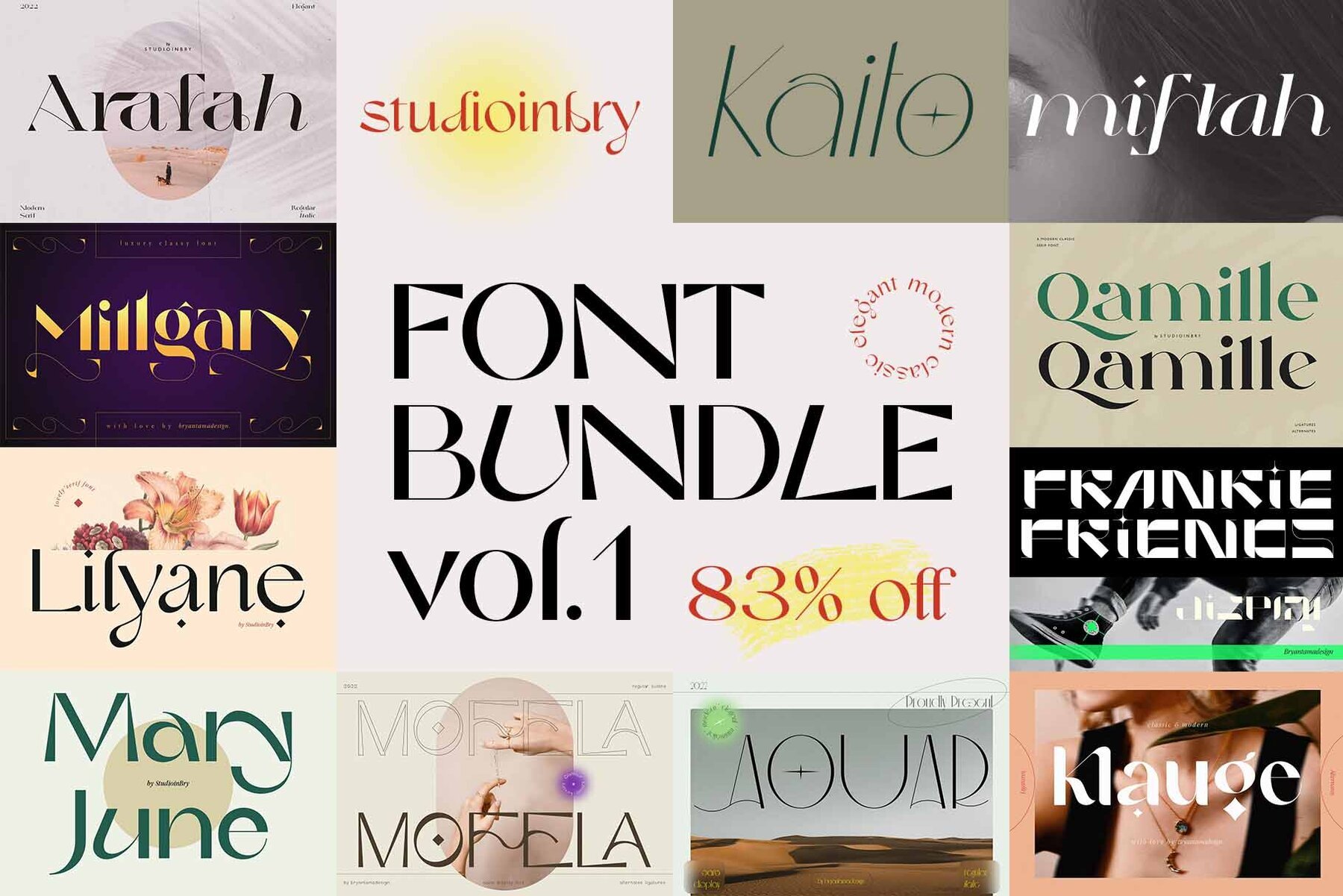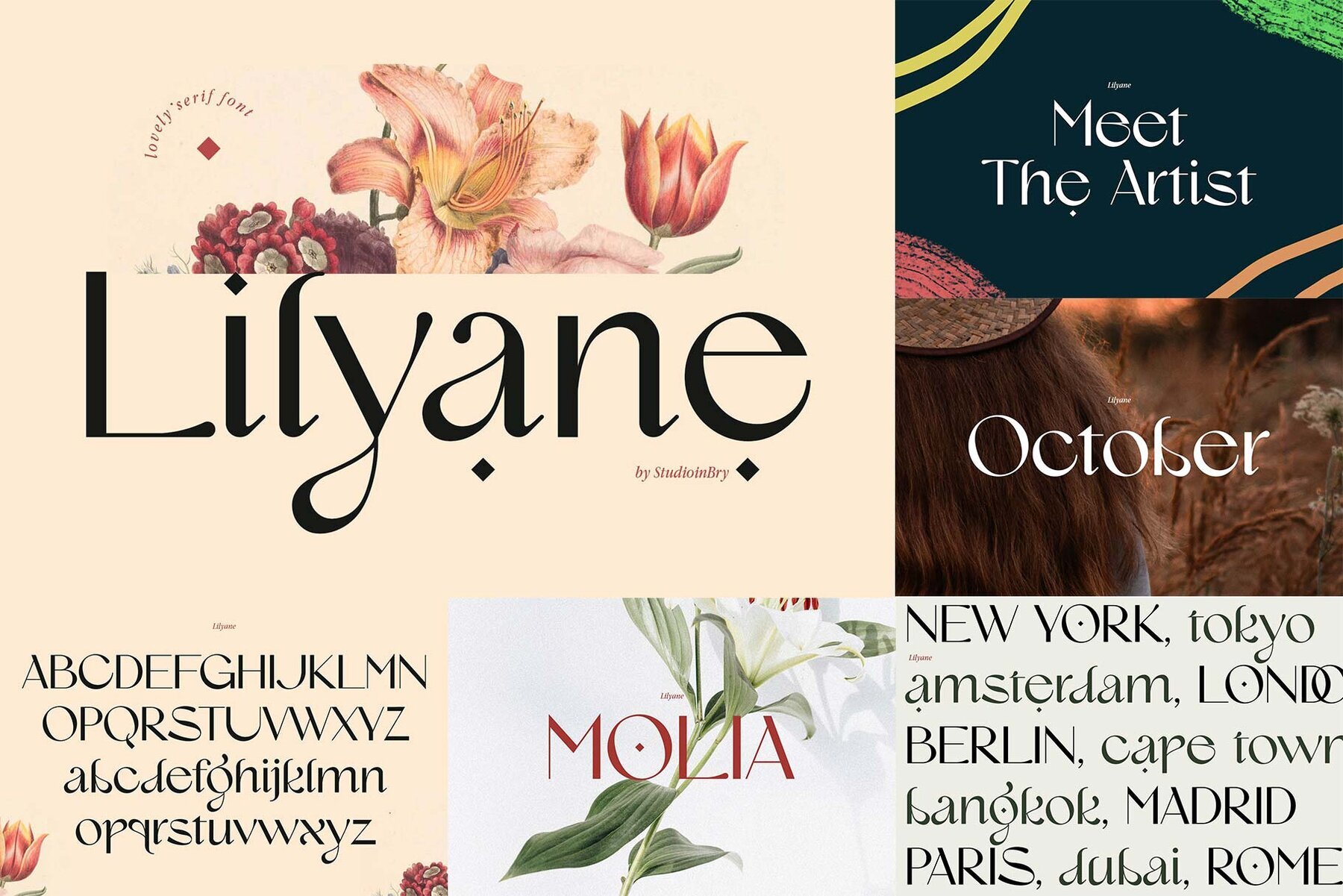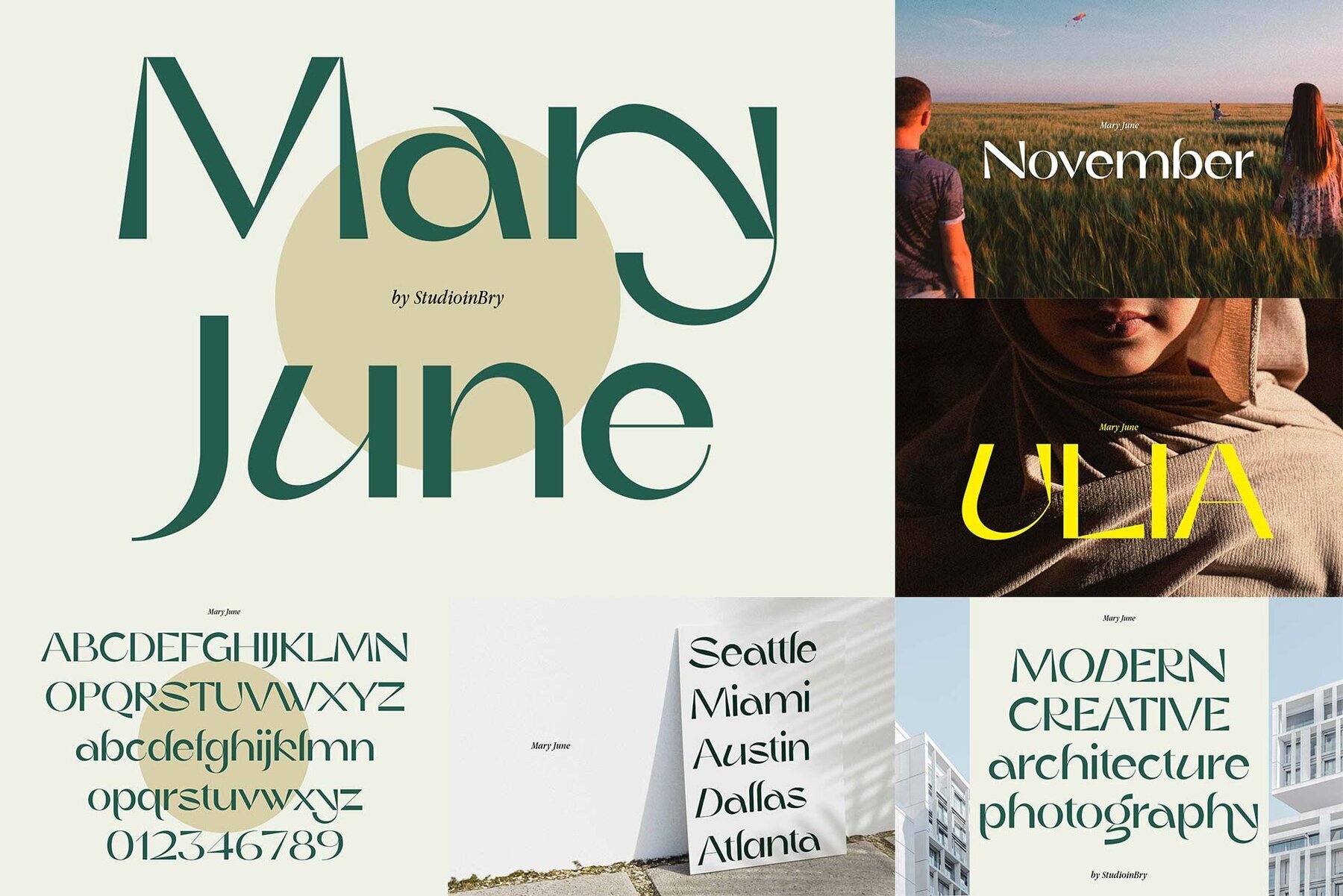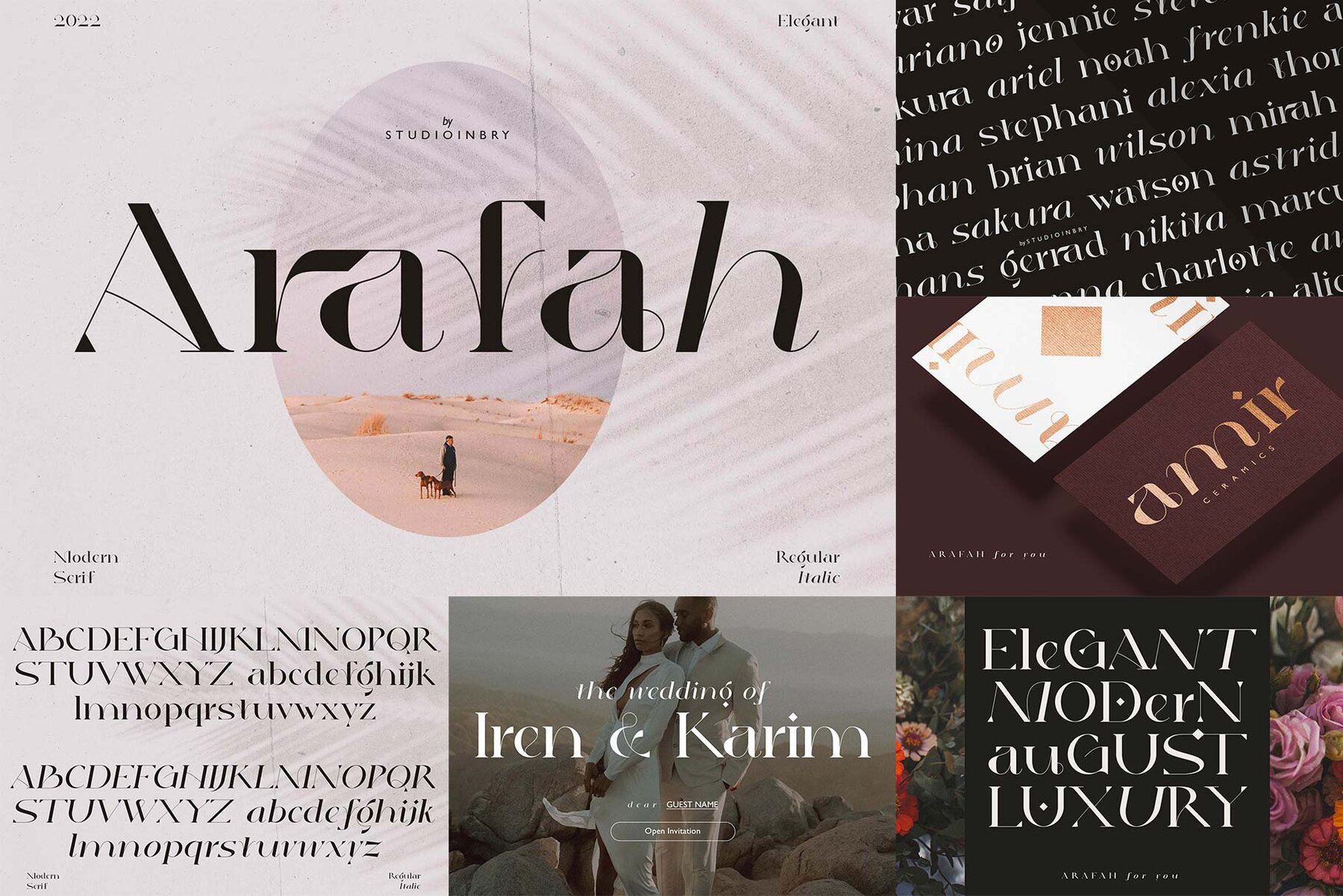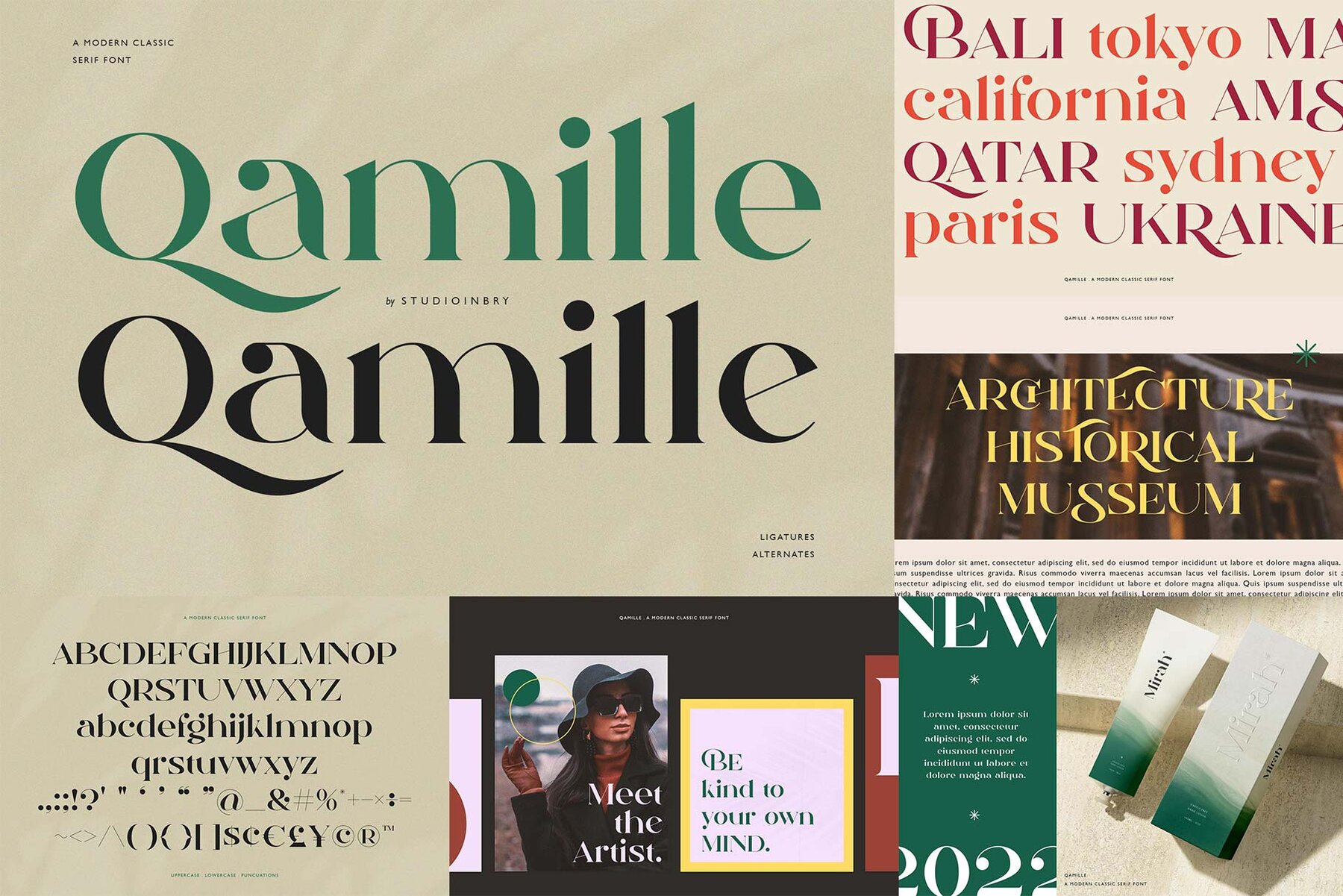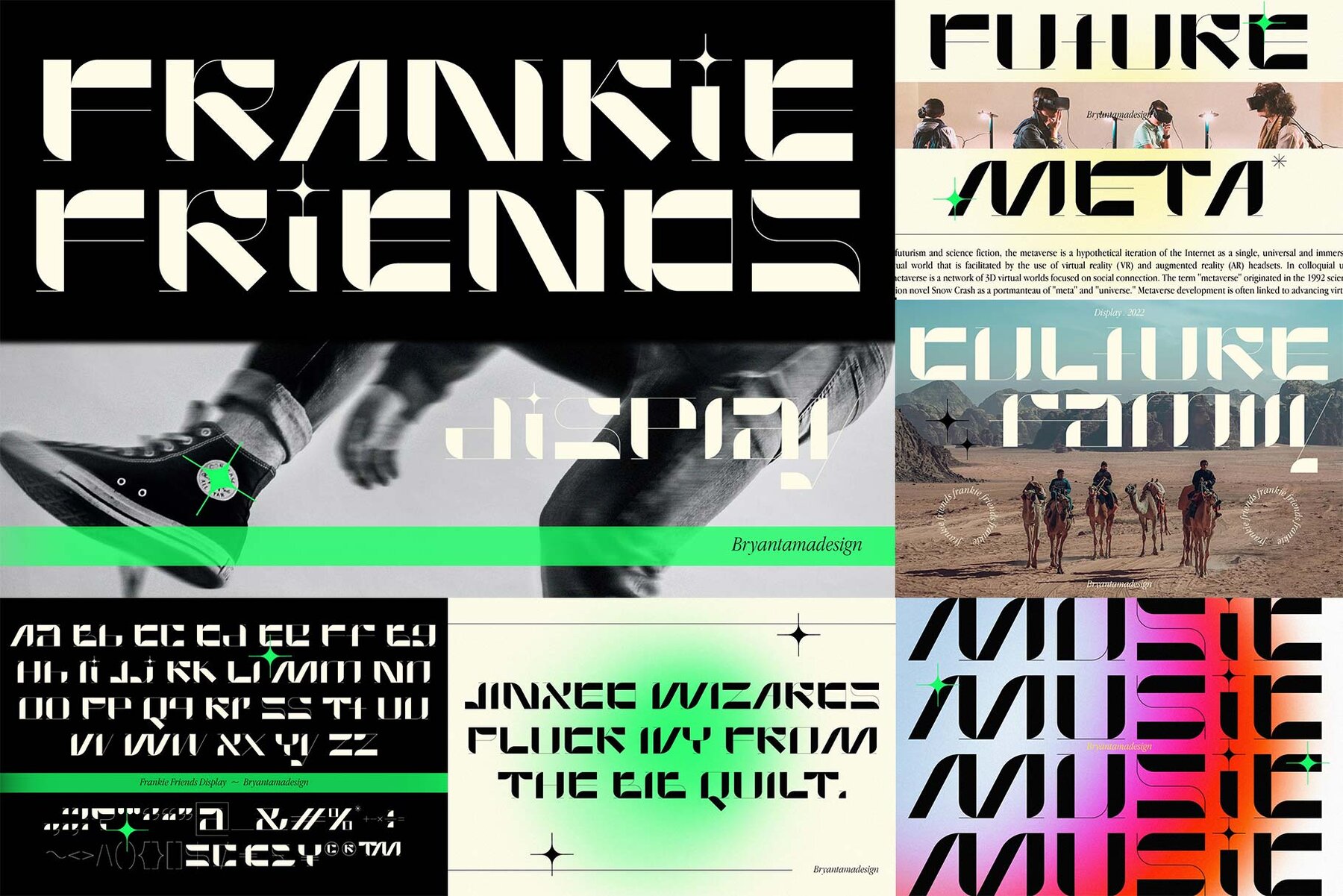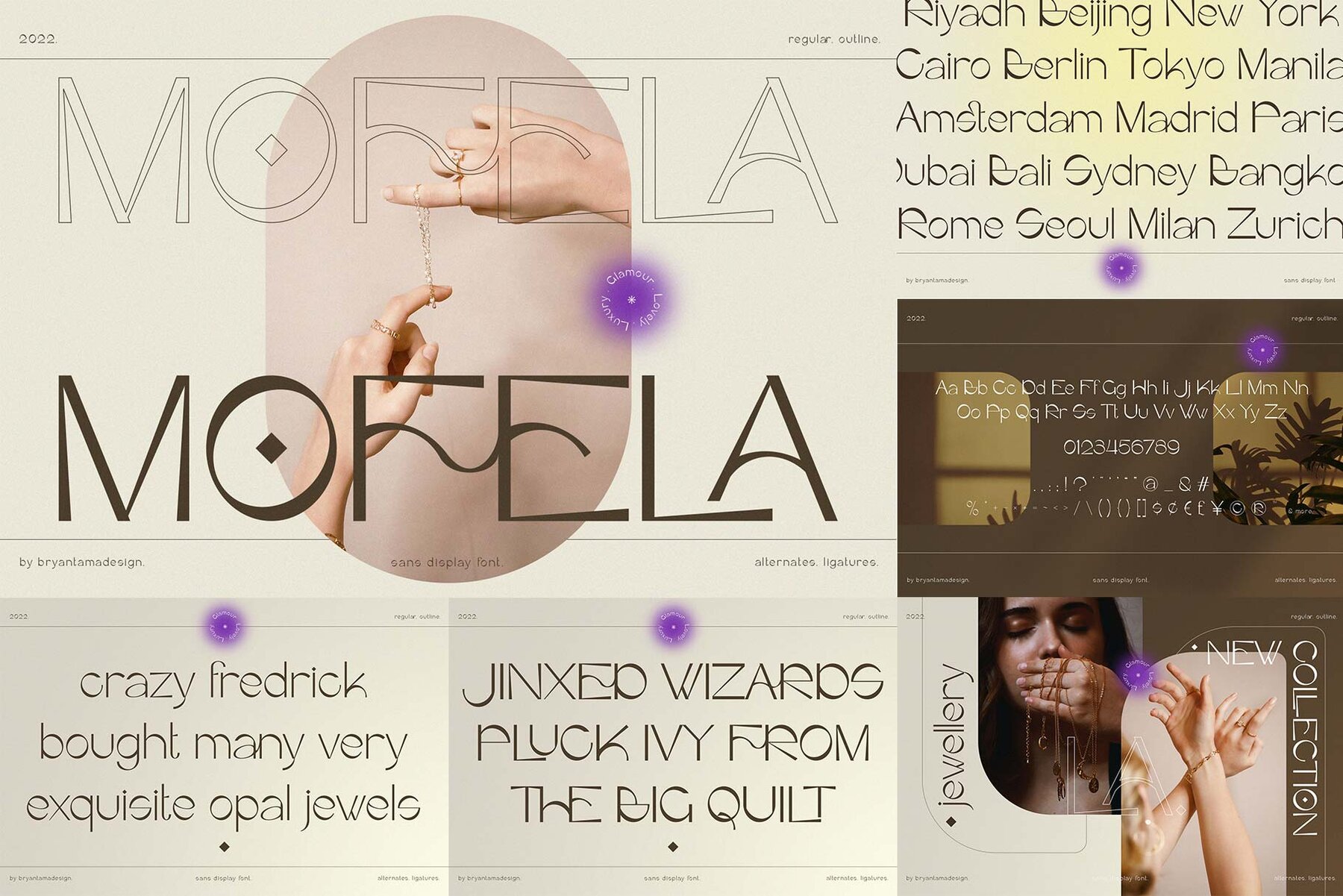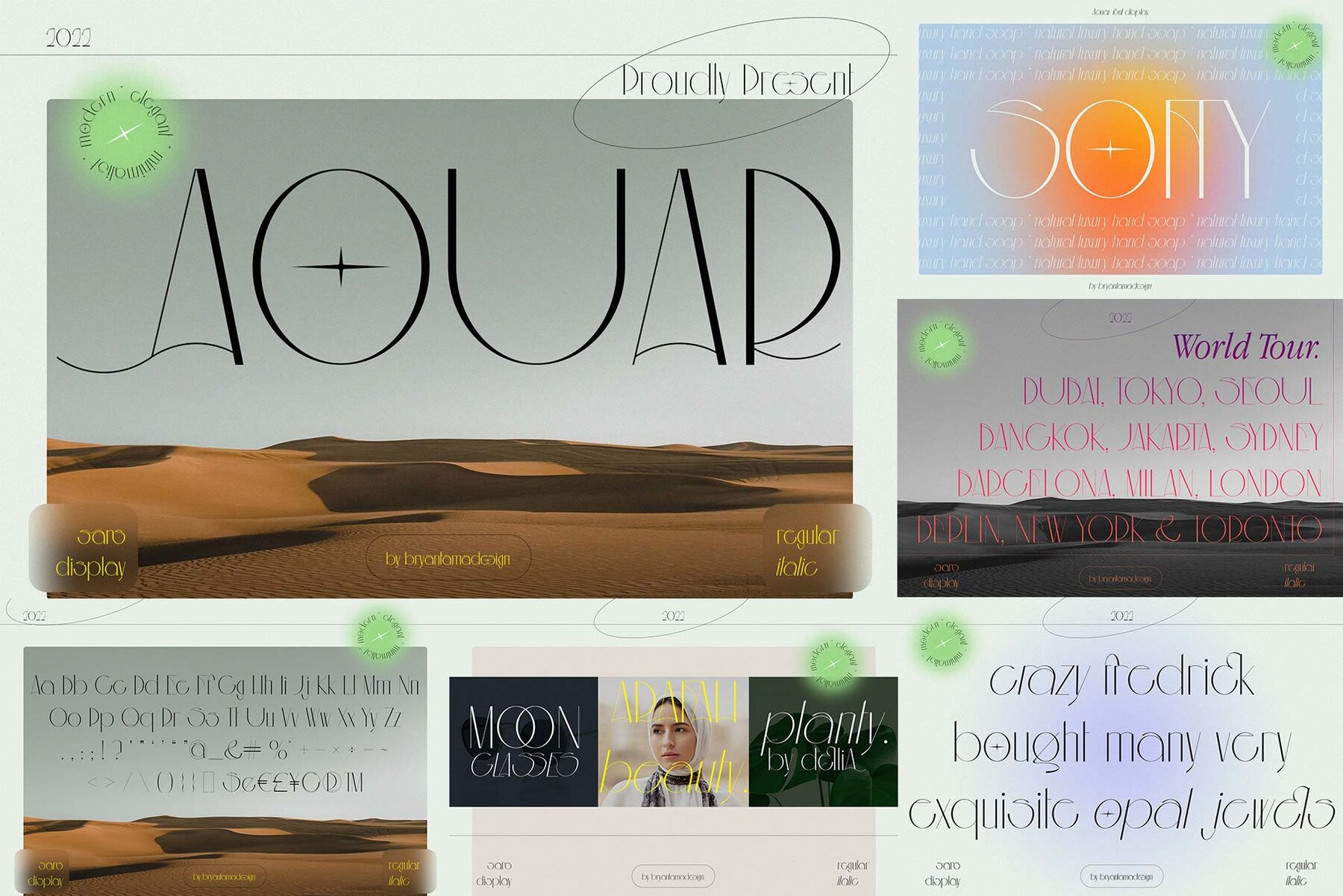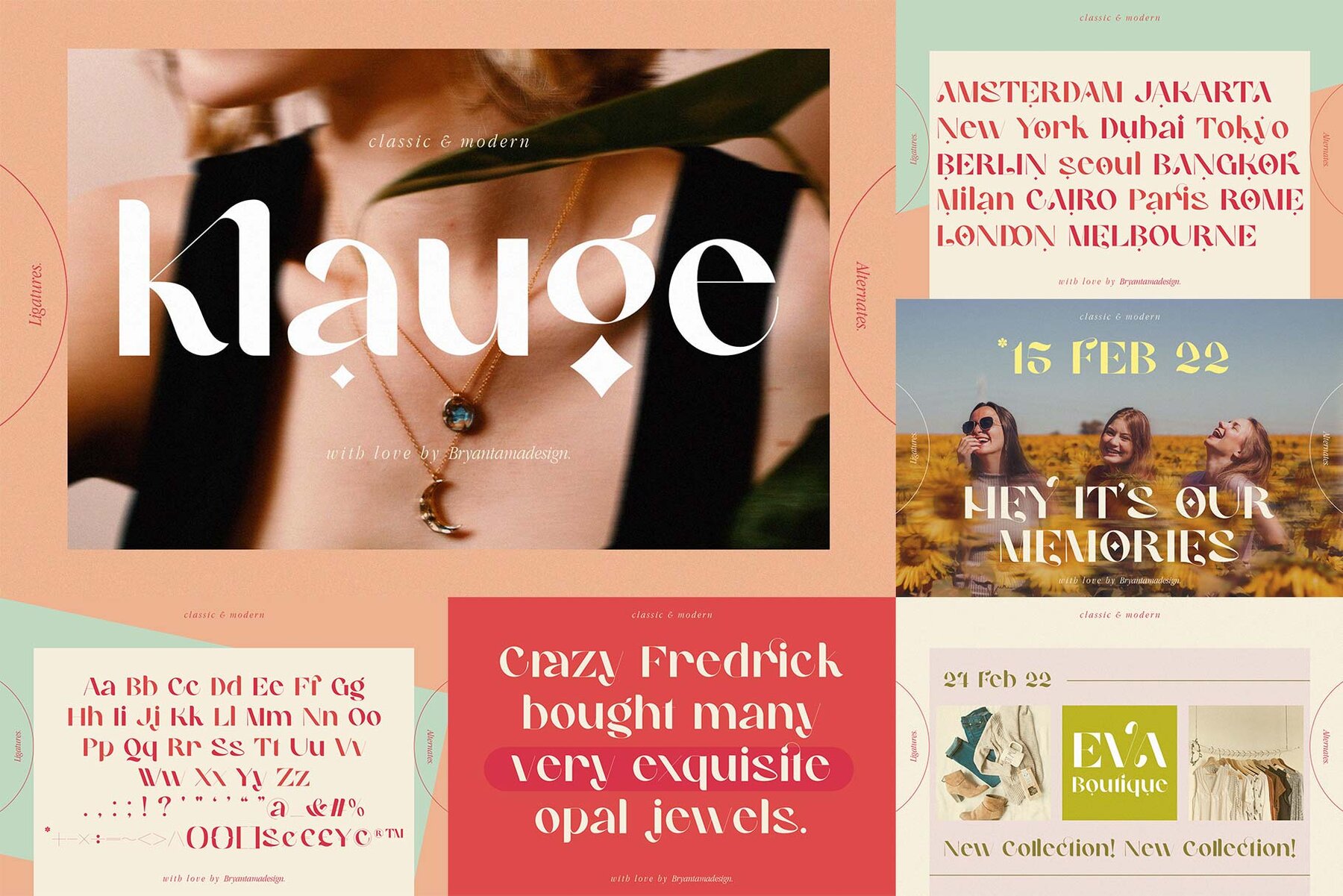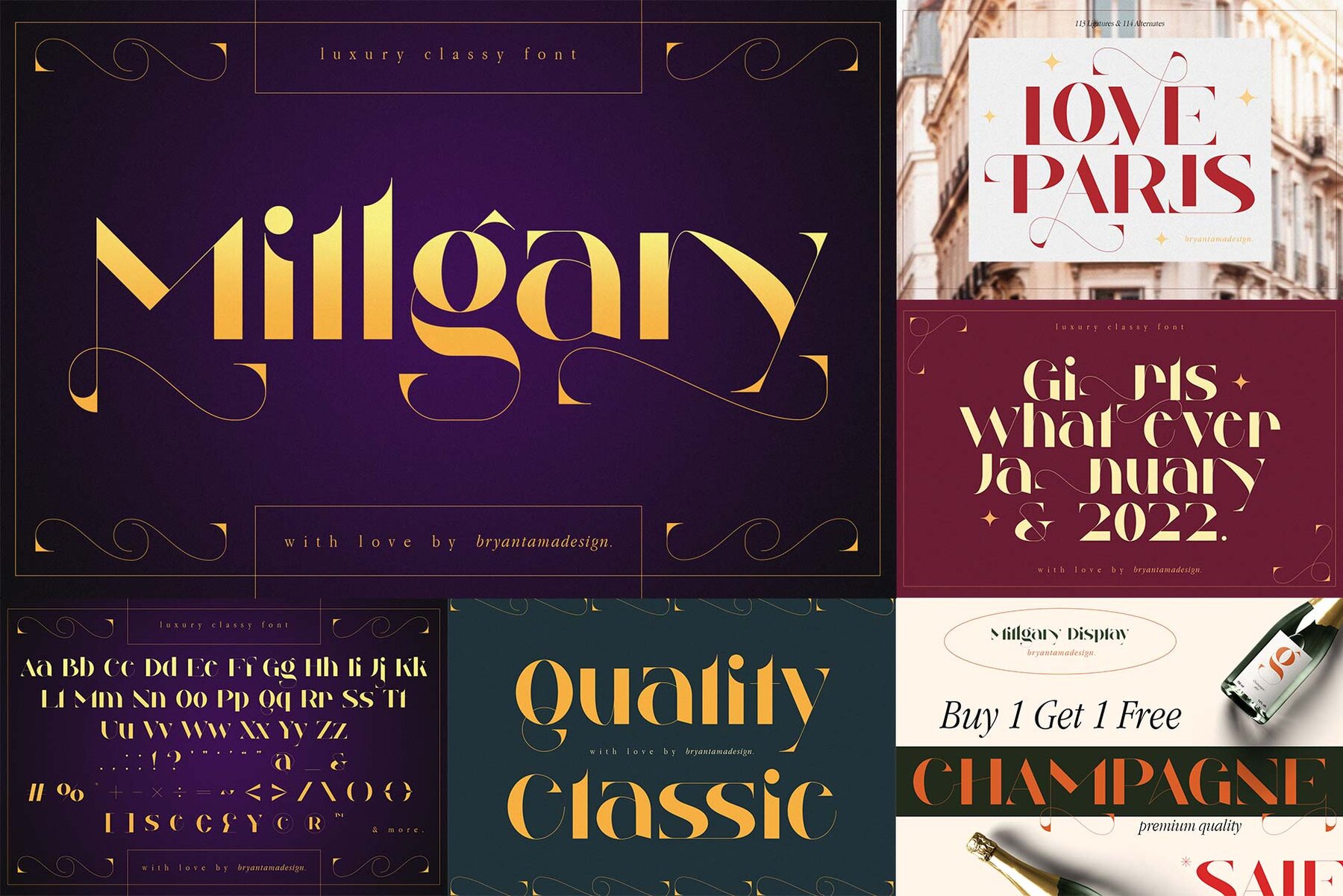
Modern Font Bundle
The bundle contains 9 modern, classic, & elegant typefaces You can use it for branding, social media, posters, packaging, & more. I hope you enjoy them. (Full of Ligatures & Alternates with Latin multilingual support.)
• Aouar - Minimalist Font
• Arafah - Modern Serif
• Frankie Friends - Modern Tech Display
• Klauge - Classic & Modern Font
• Lilyane - Lovely Font
• Mary June - Modern Contrast
• Millgary - Decorative Font
• Mofela - Modern Abstract
• Qamille - Classic & Modern Serif